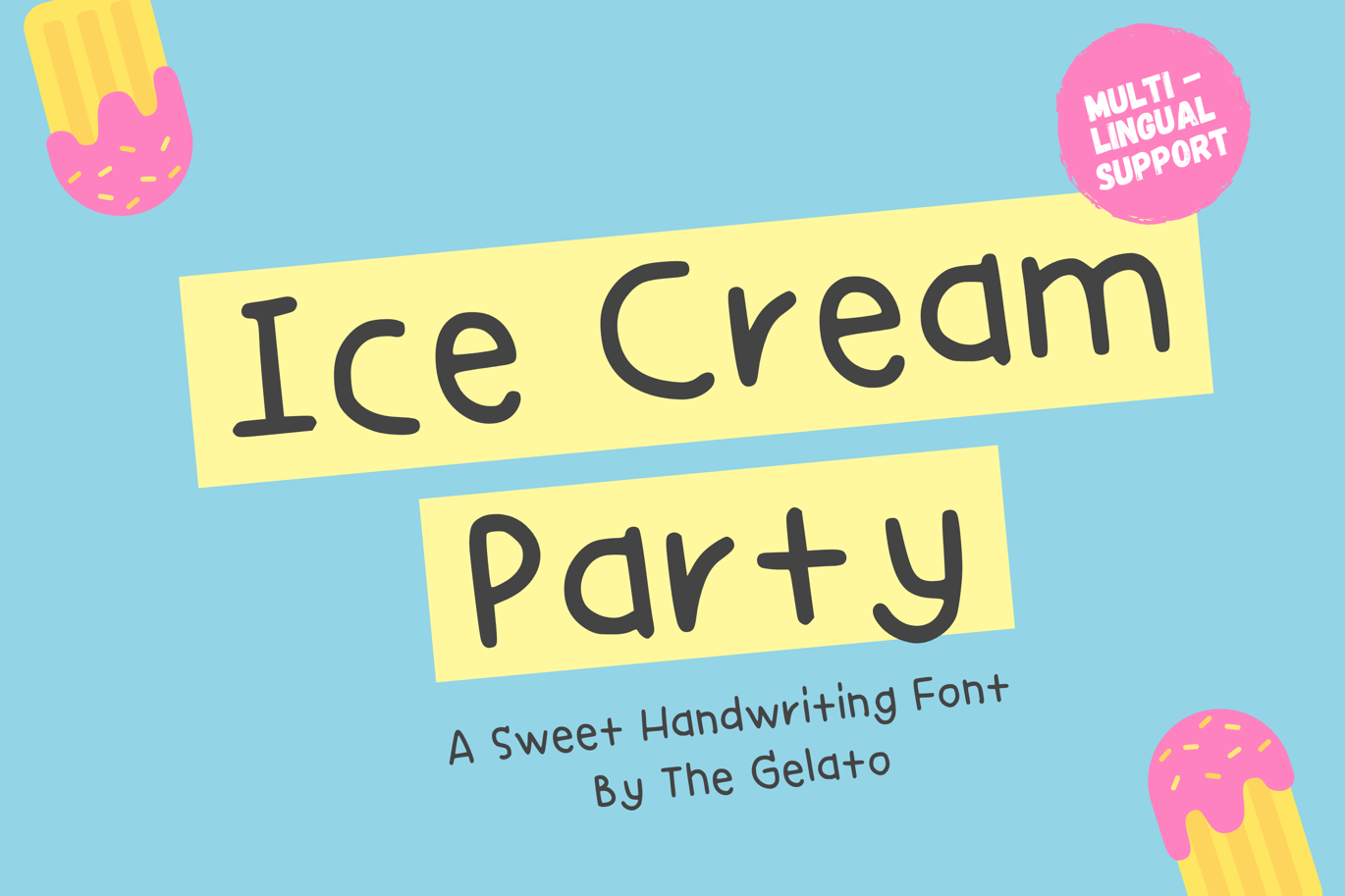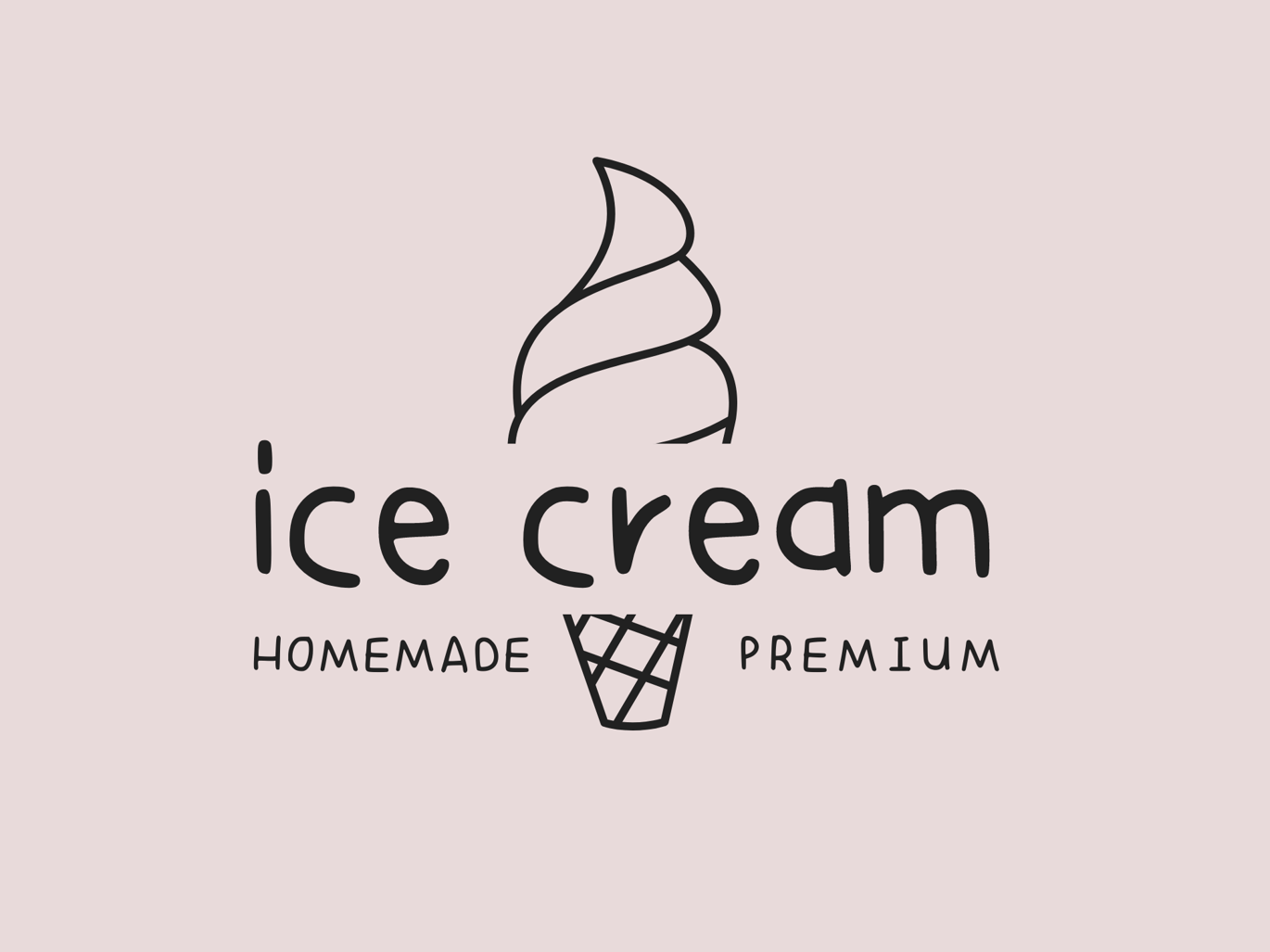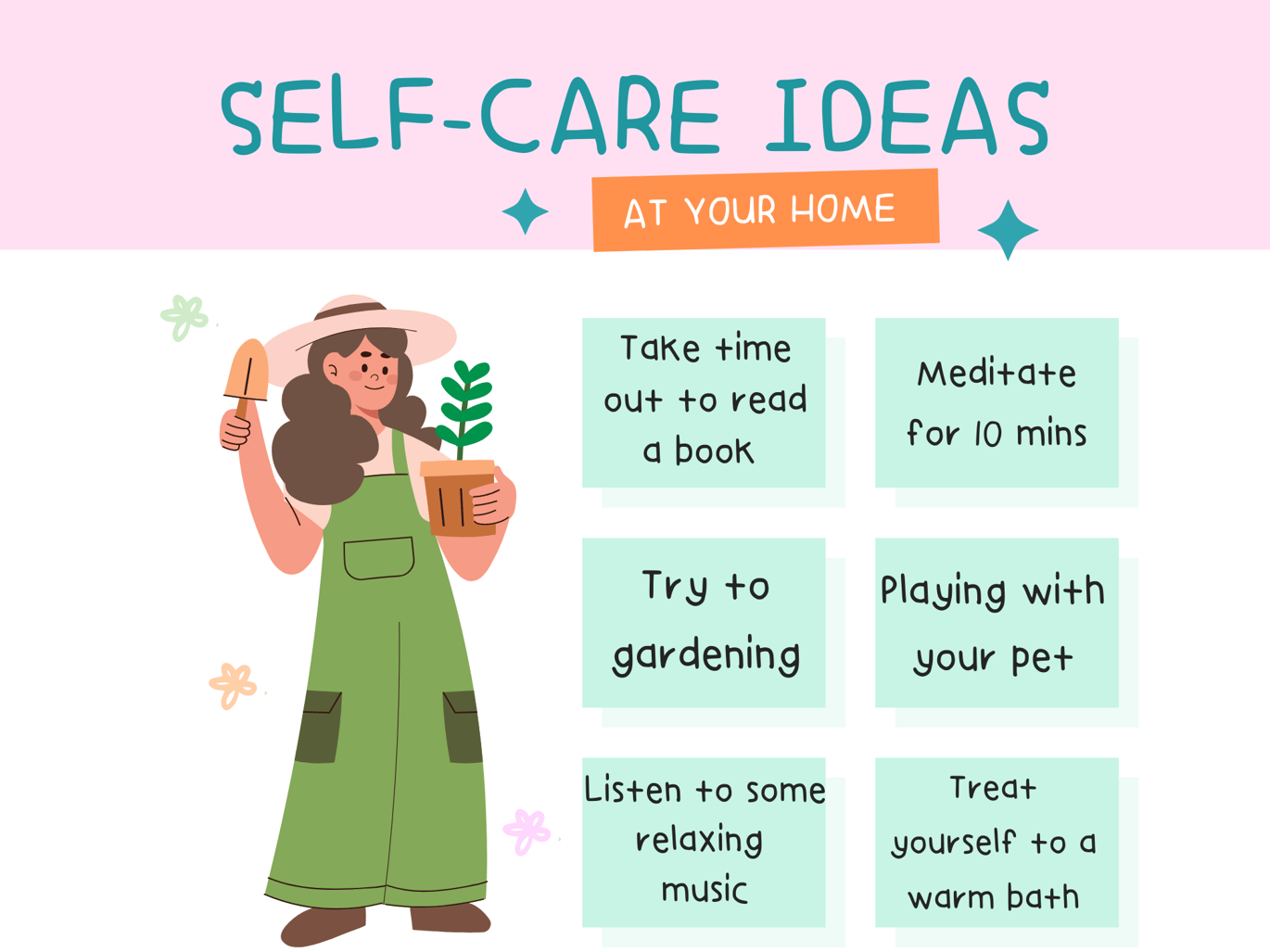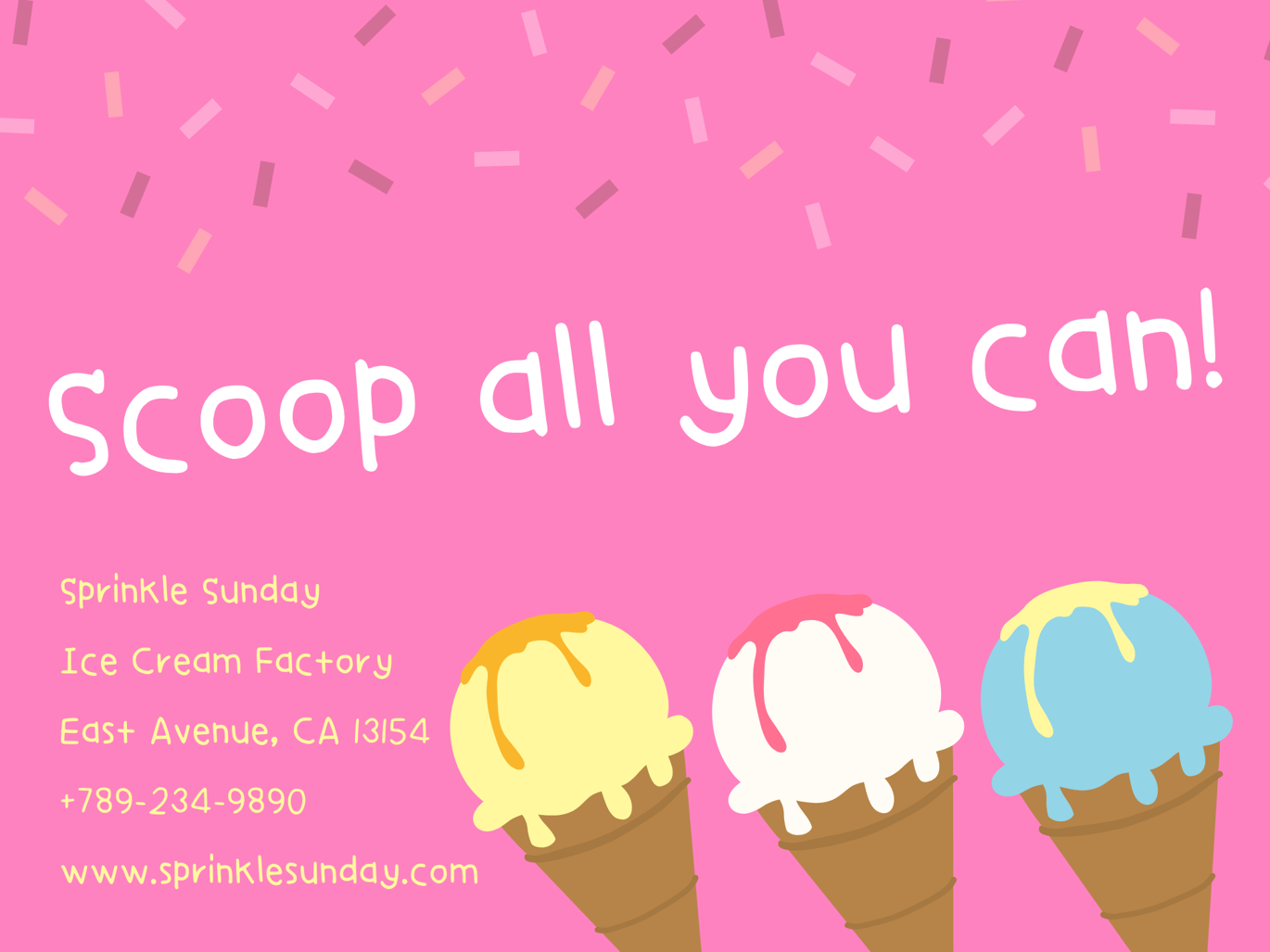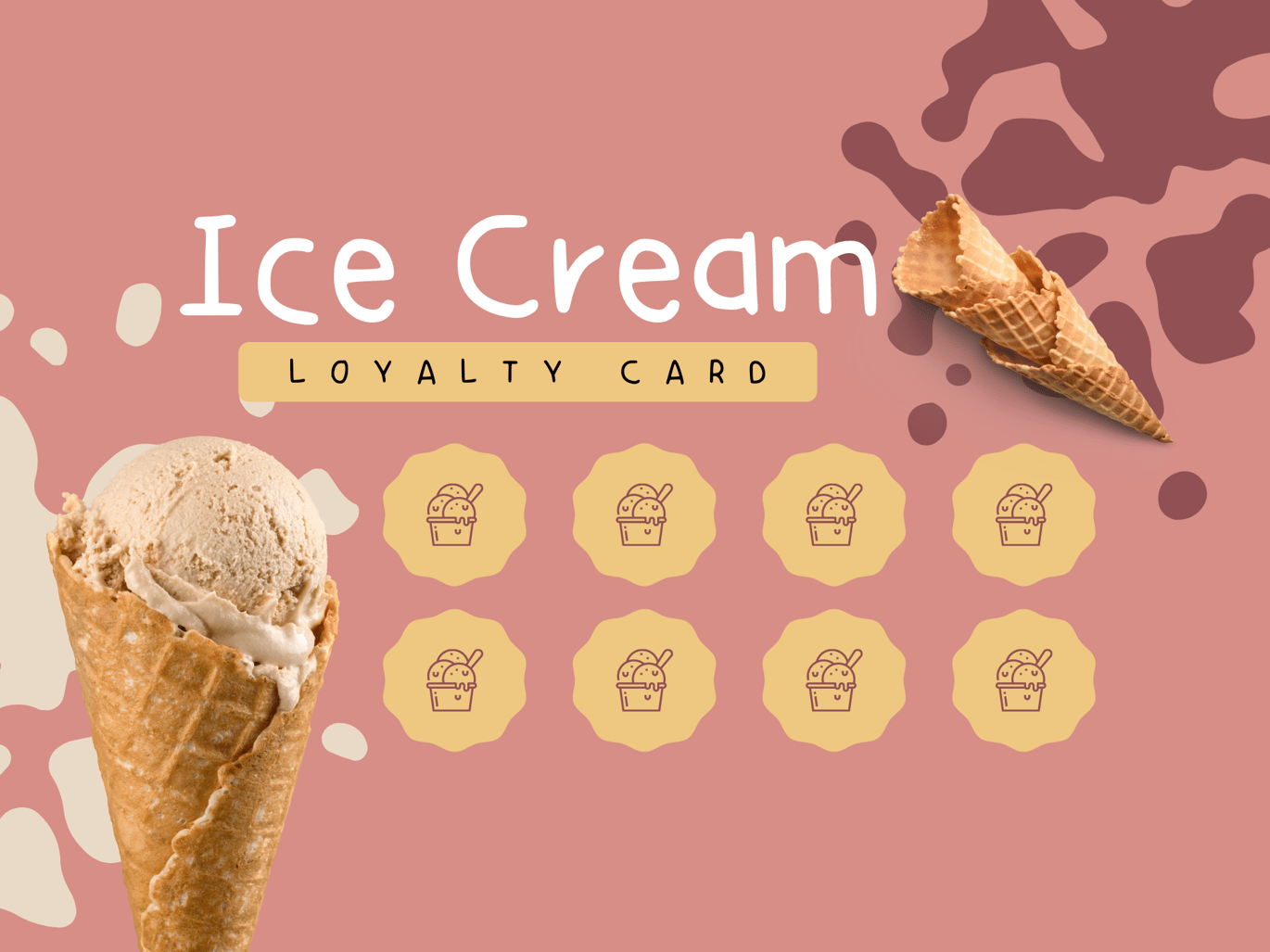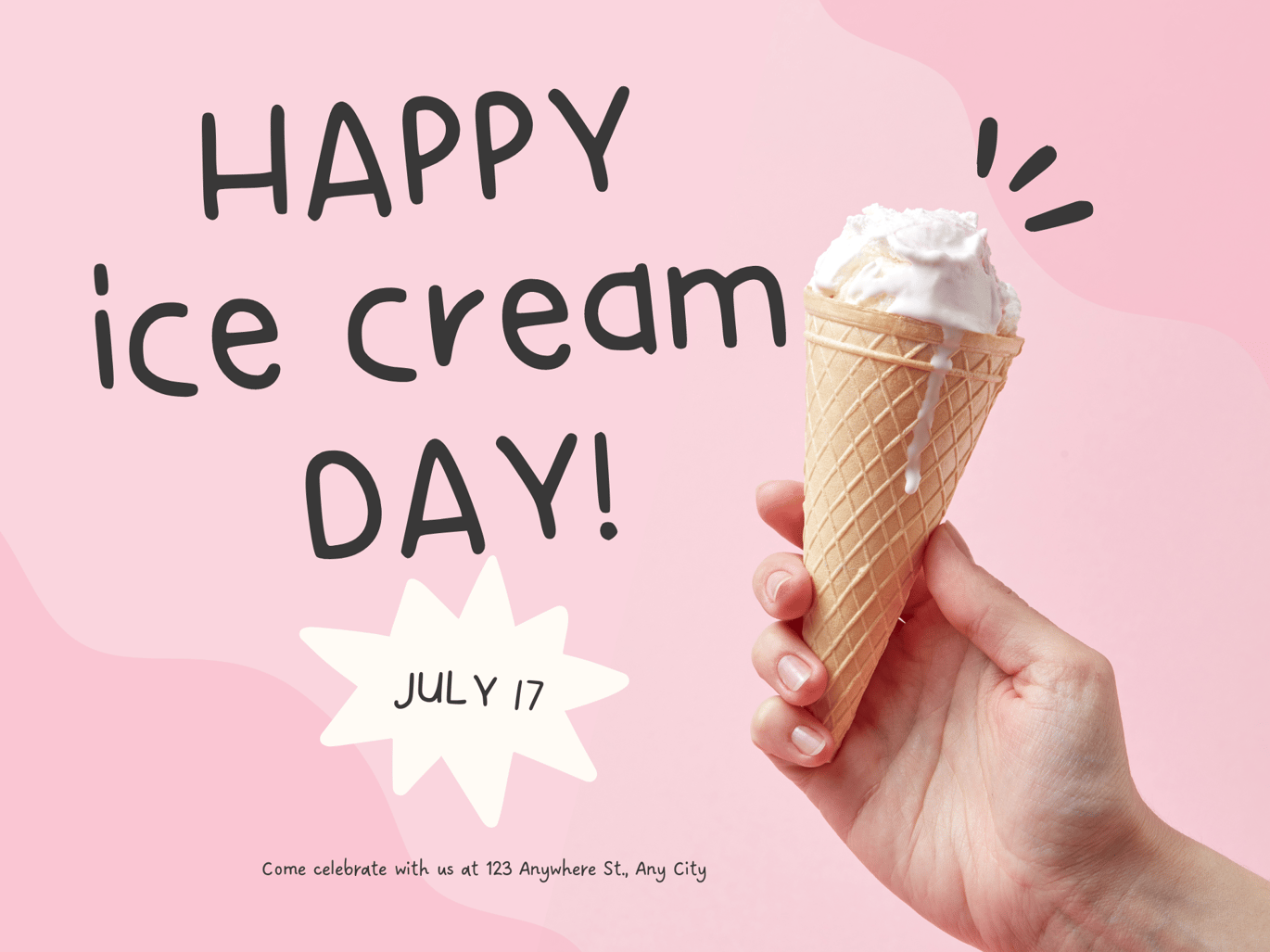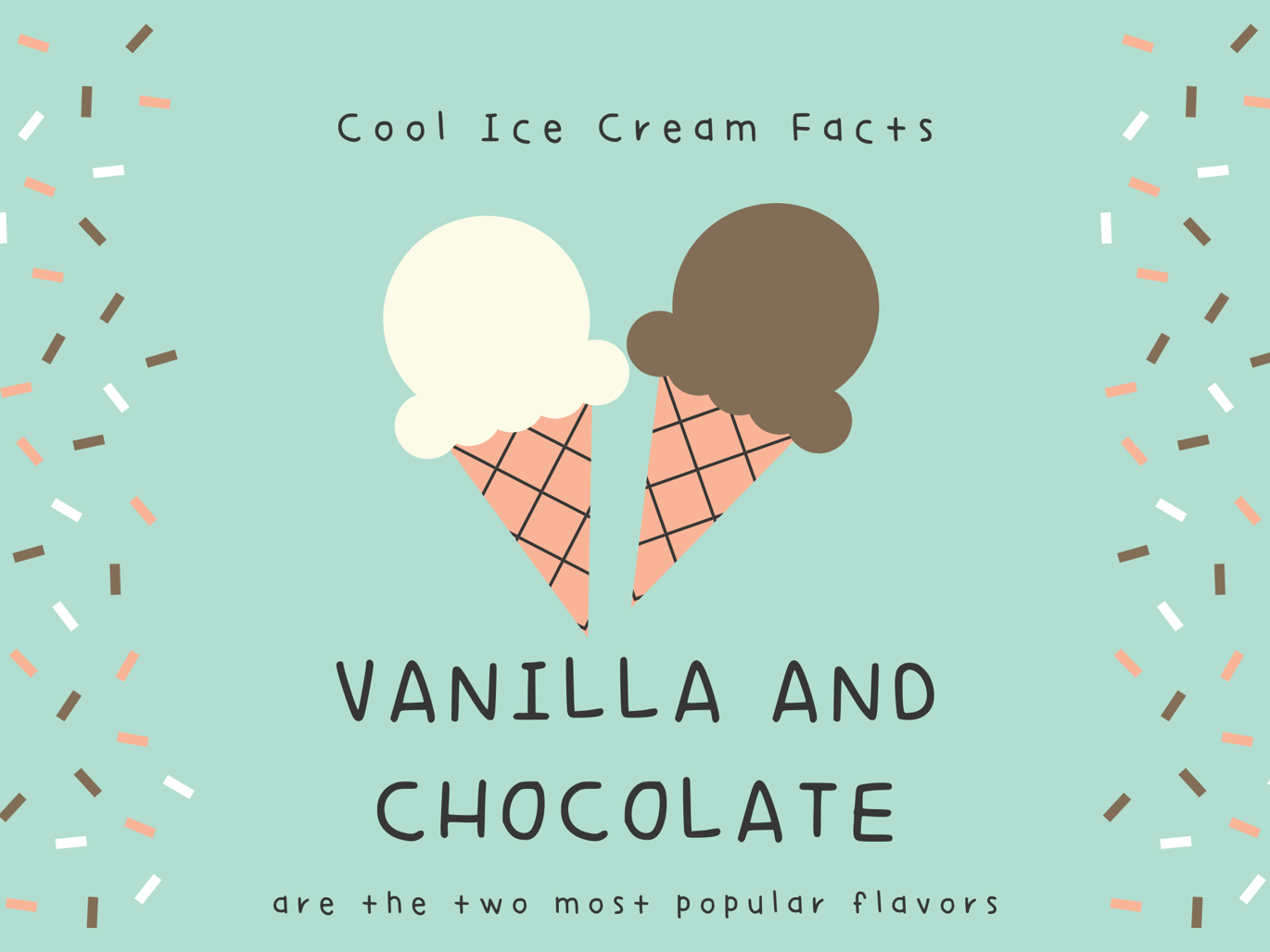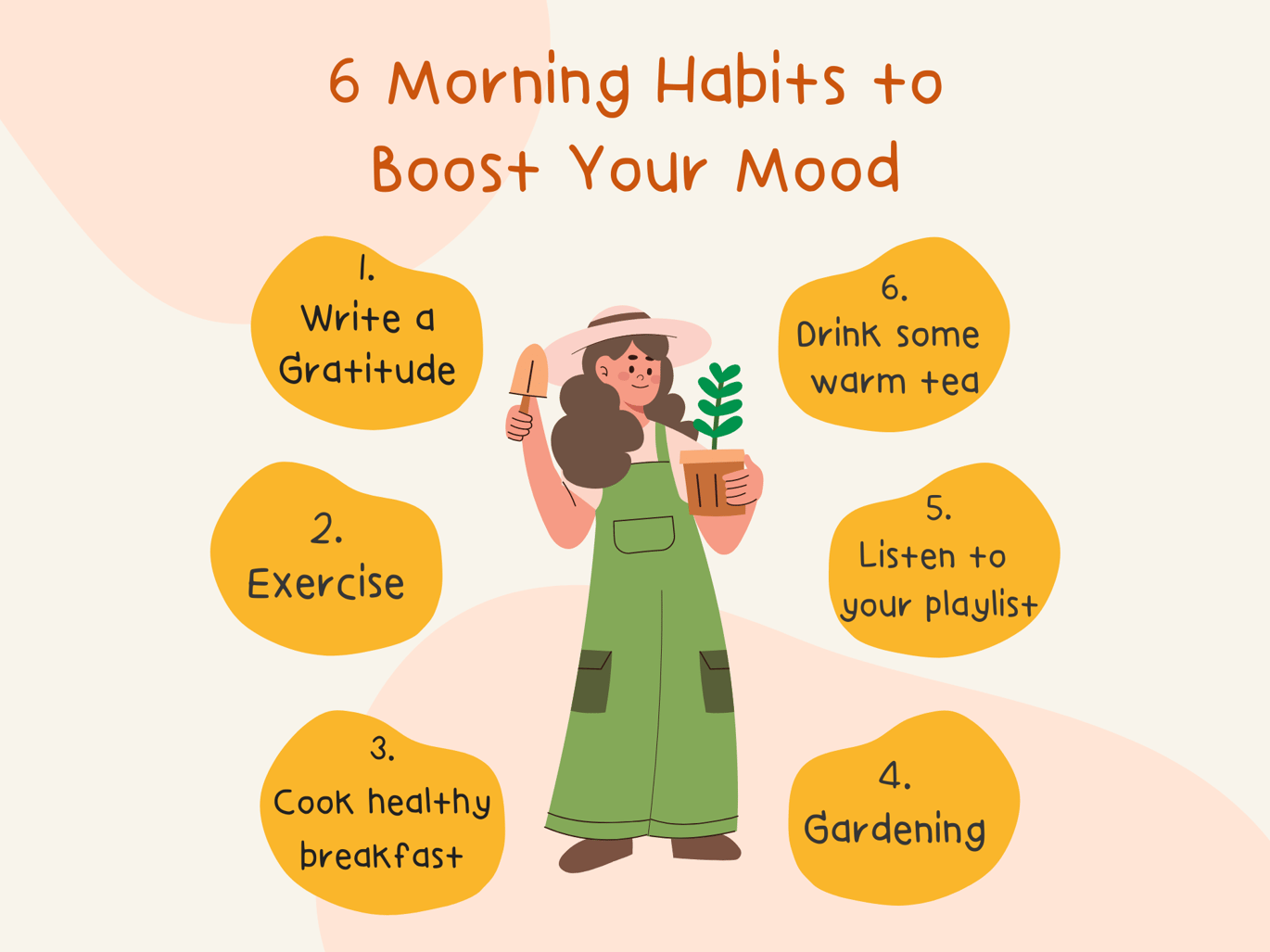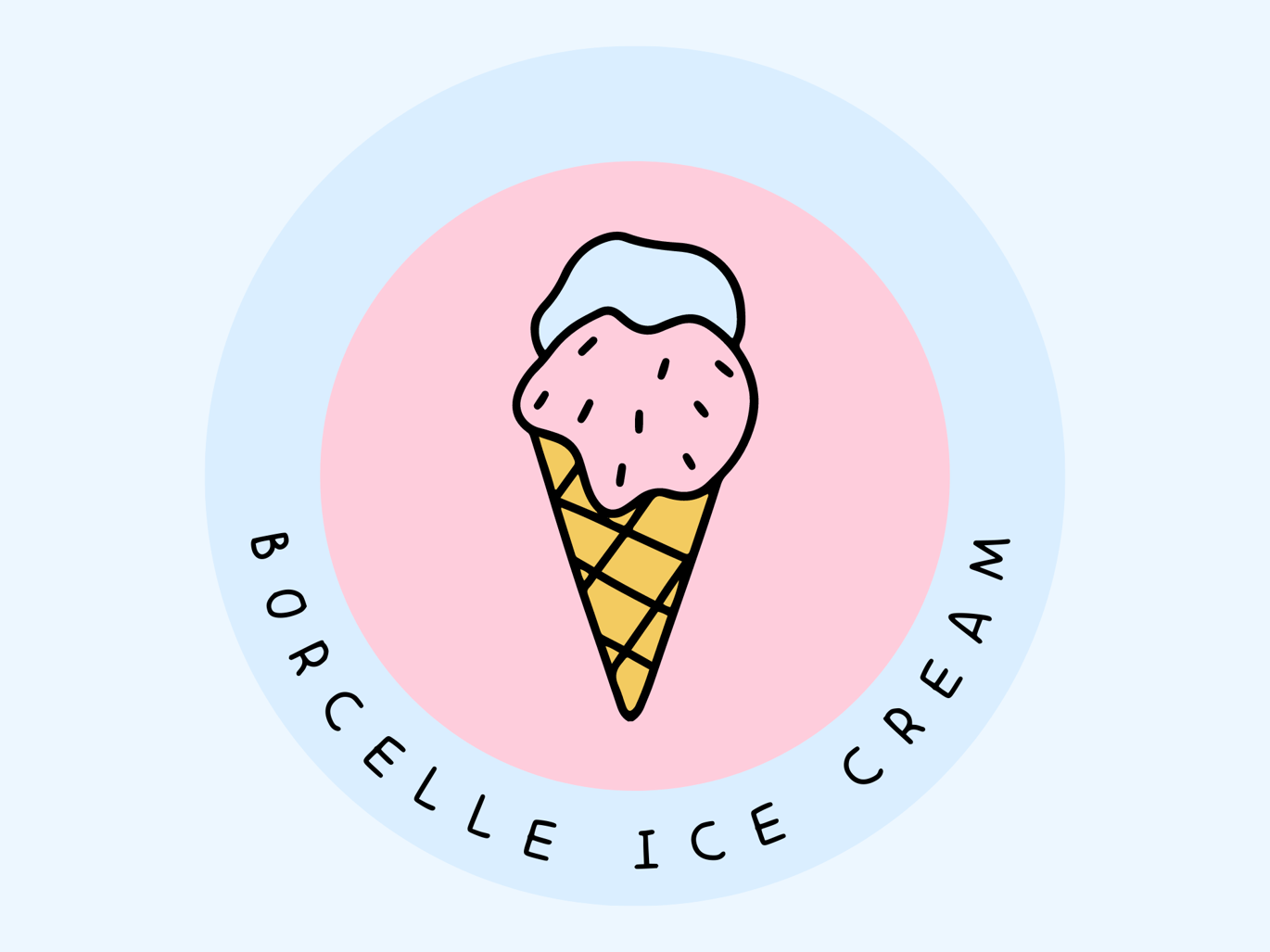
Ice Cream Party Monoline Handwritten Font
Ice Cream Party is a sweet handwritten monoline font that can be used as a Monoline Handwriting Font, Neat Tidy Handwriting Font, Cute Handwritten Font, Teacher iPad Font, Font for Digital Planner, Kid Handwriting Font, Study Font, Summer Font, Girl Font, Apple Pencil Font
Perfectly suitable for numerous use such as quotations, banners, logos, product packaging, titles, headers, menu lists, and even for digital note-taking!
✅ Multilingual Support